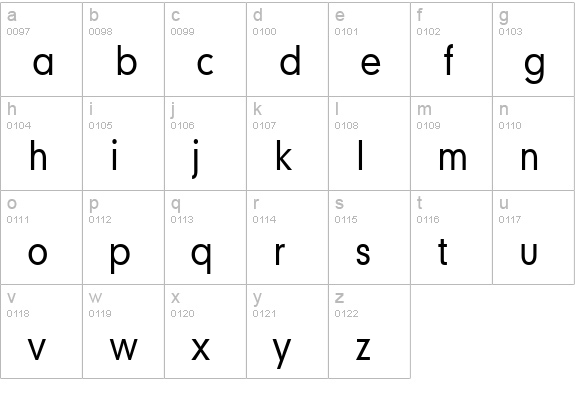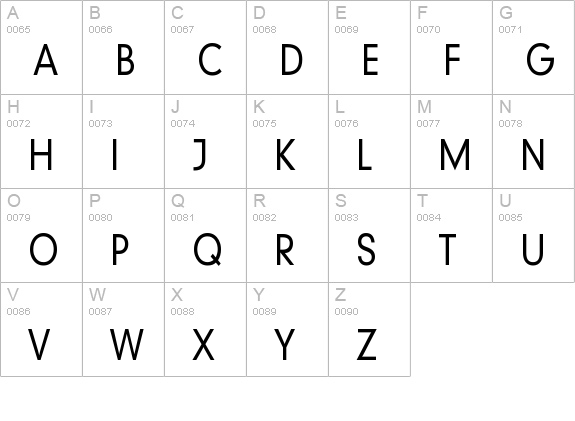
Geo 579 Condensed Normal is the standard, neutral, condensed-width variant in the Geo typeface family \xE2\x80\x94 well suited to general body text, paragraphs, and standard typographic work.
The Geo 579 Condensed Normal font is a sleek and modern typeface that exudes elegance and sophistication. Its condensed design makes it perfect for creating eye-catching headlines, logos, and branding materials. The clean lines and balanced proportions of this font ensure readability and visual impact in any design project. Best of all, the Geo 579 Condensed Normal font is available for free download at FontsMarket.com. This means you can easily access and use this high-quality font in your personal and commercial projects without any cost. Don't miss out on the opportunity to add a touch of style and professionalism to your designs with the Geo 579 Condensed Normal font. Download it today and elevate your creative work to the next level.